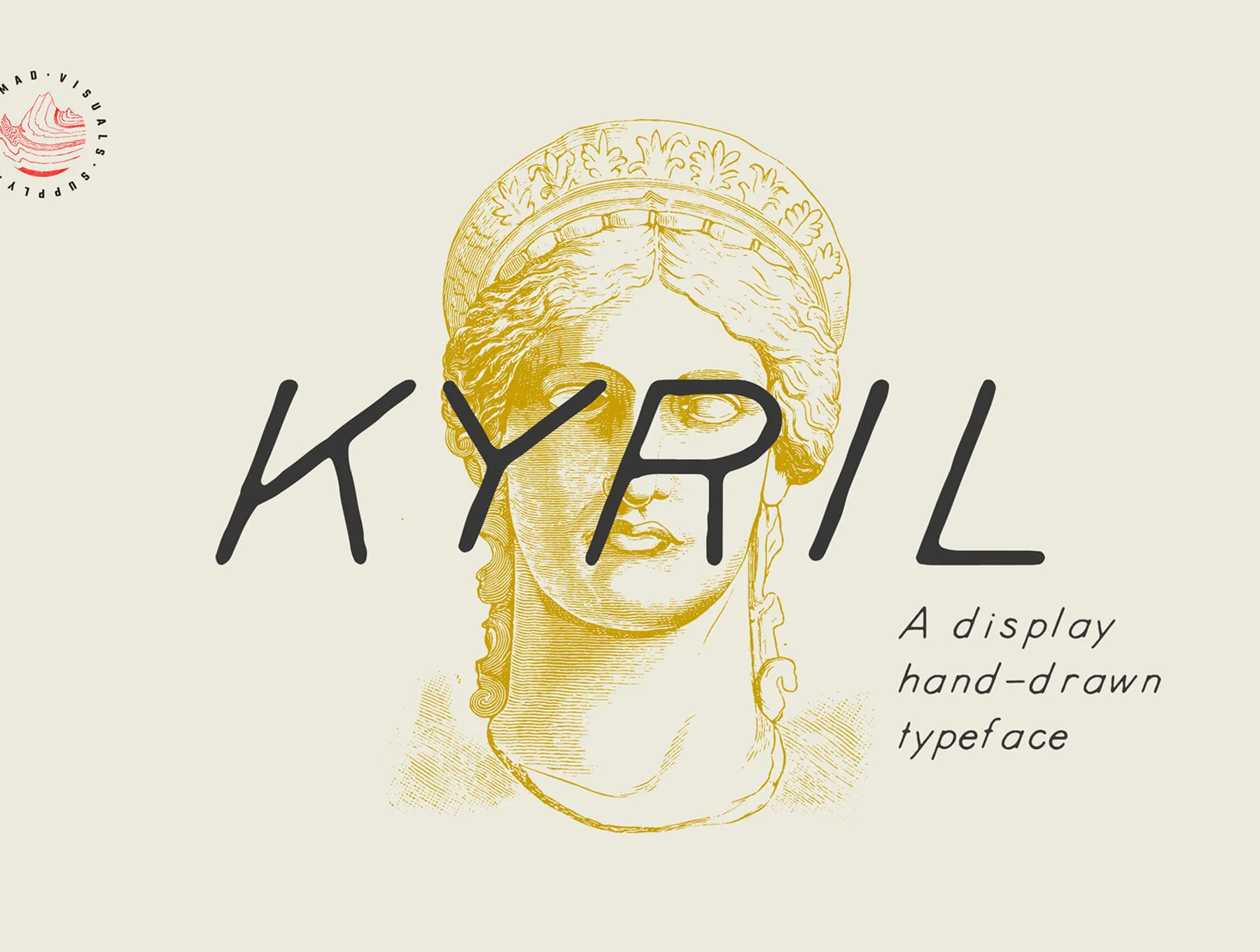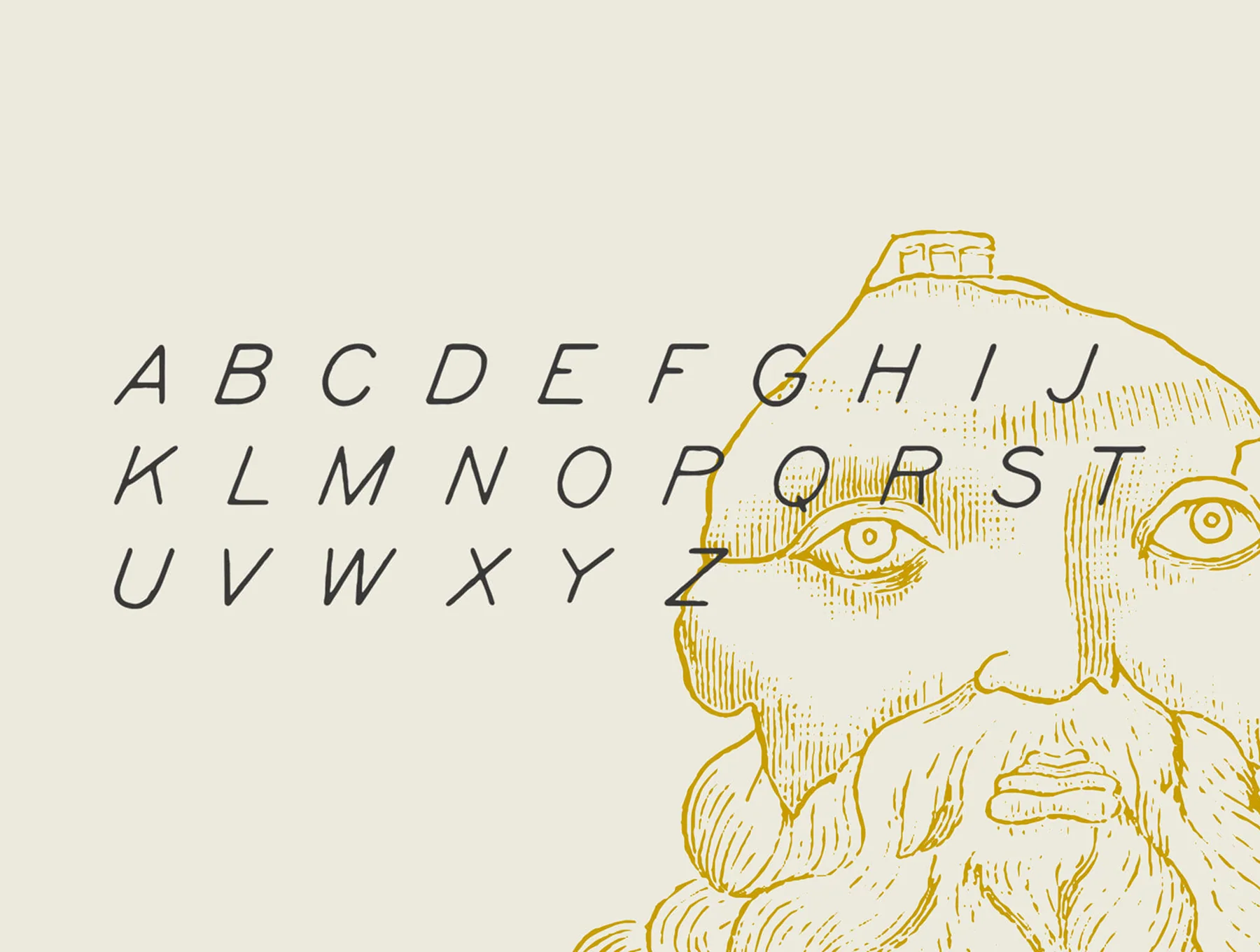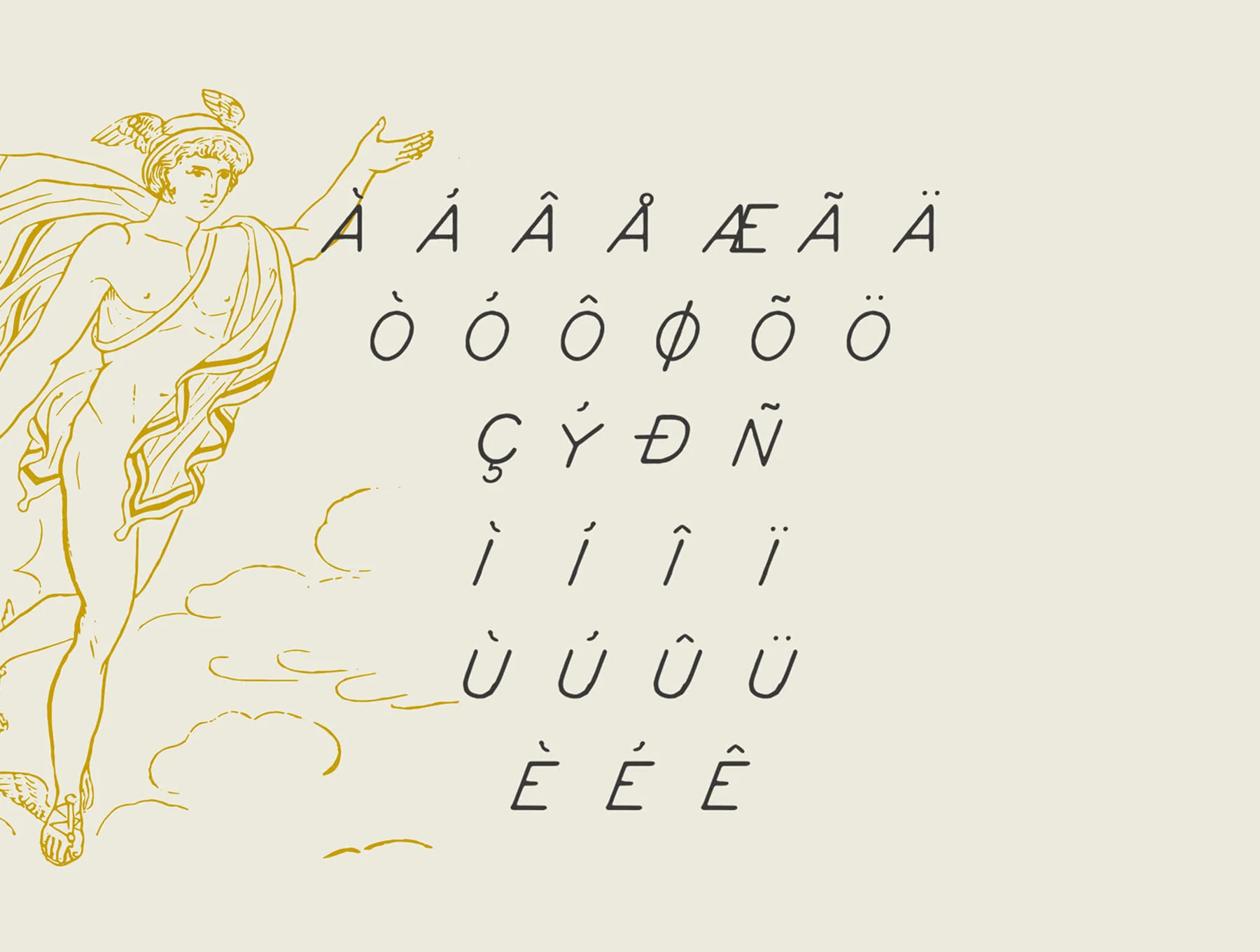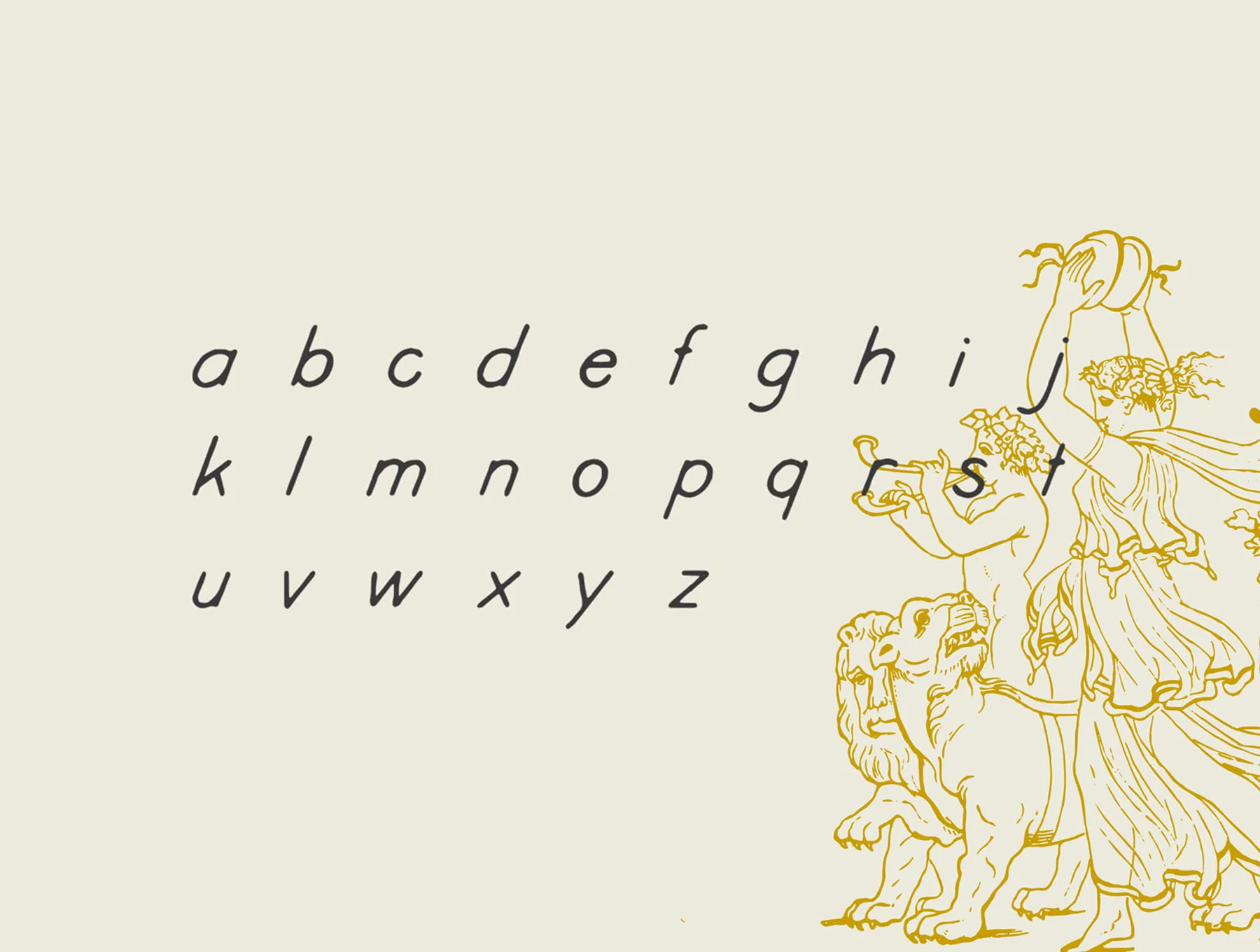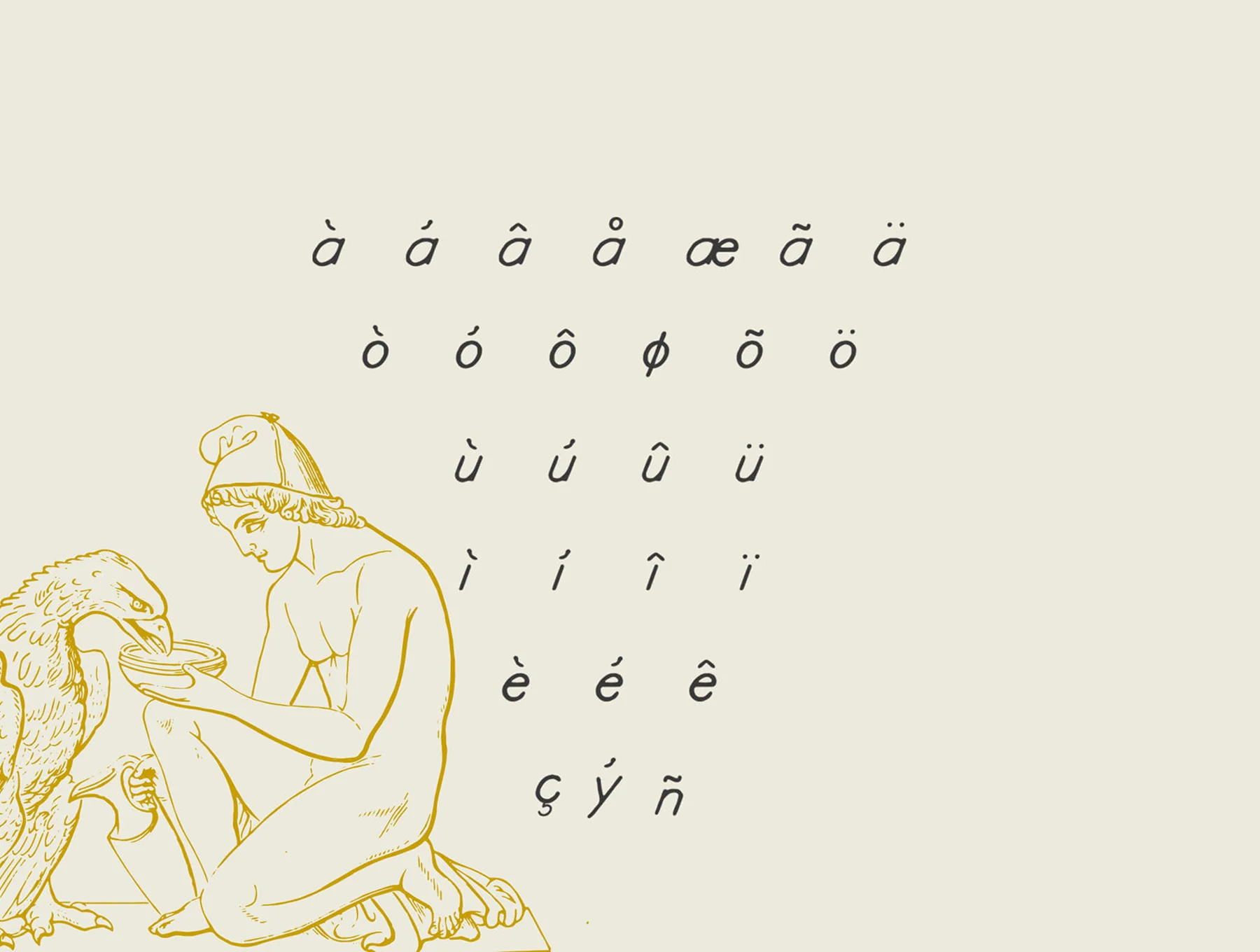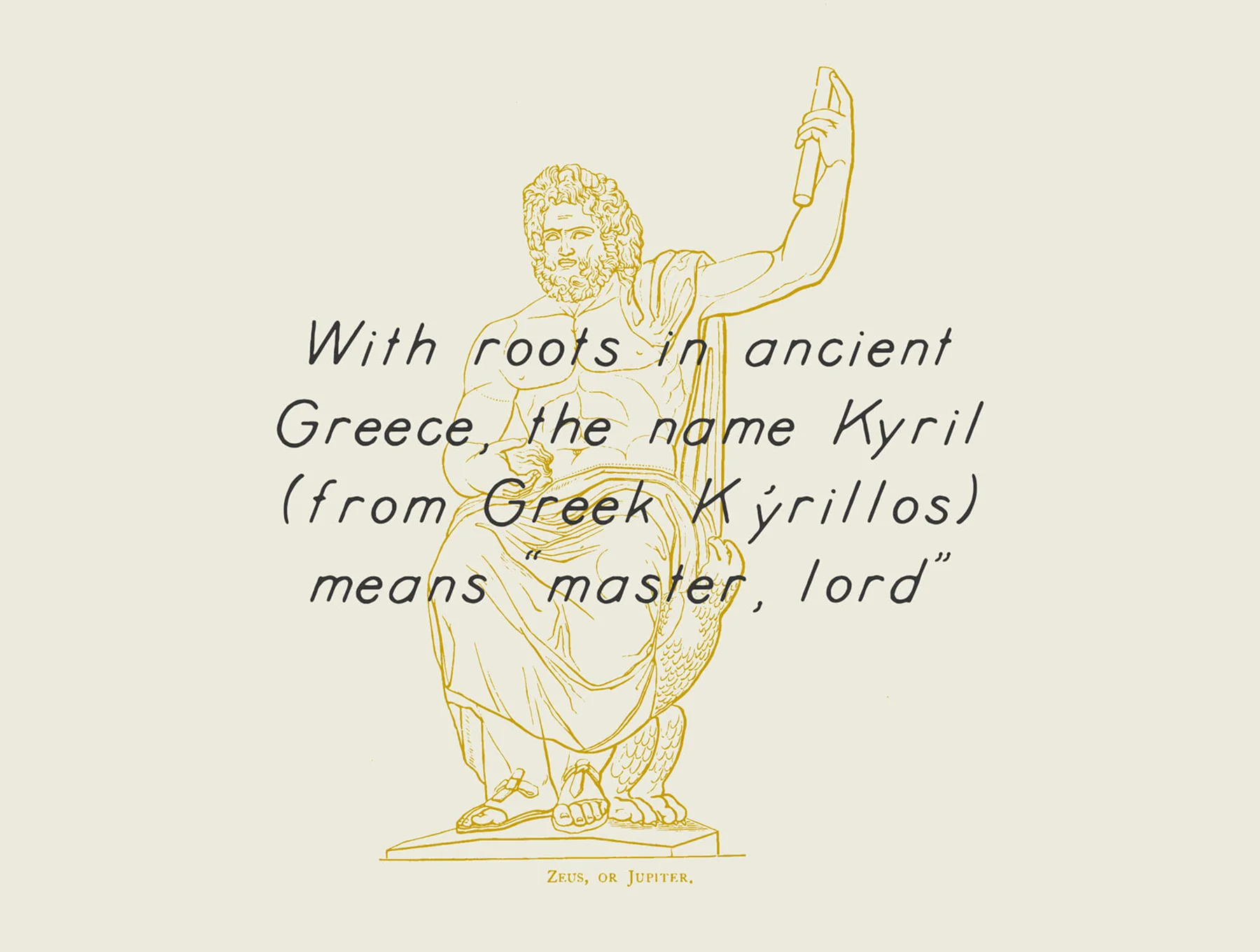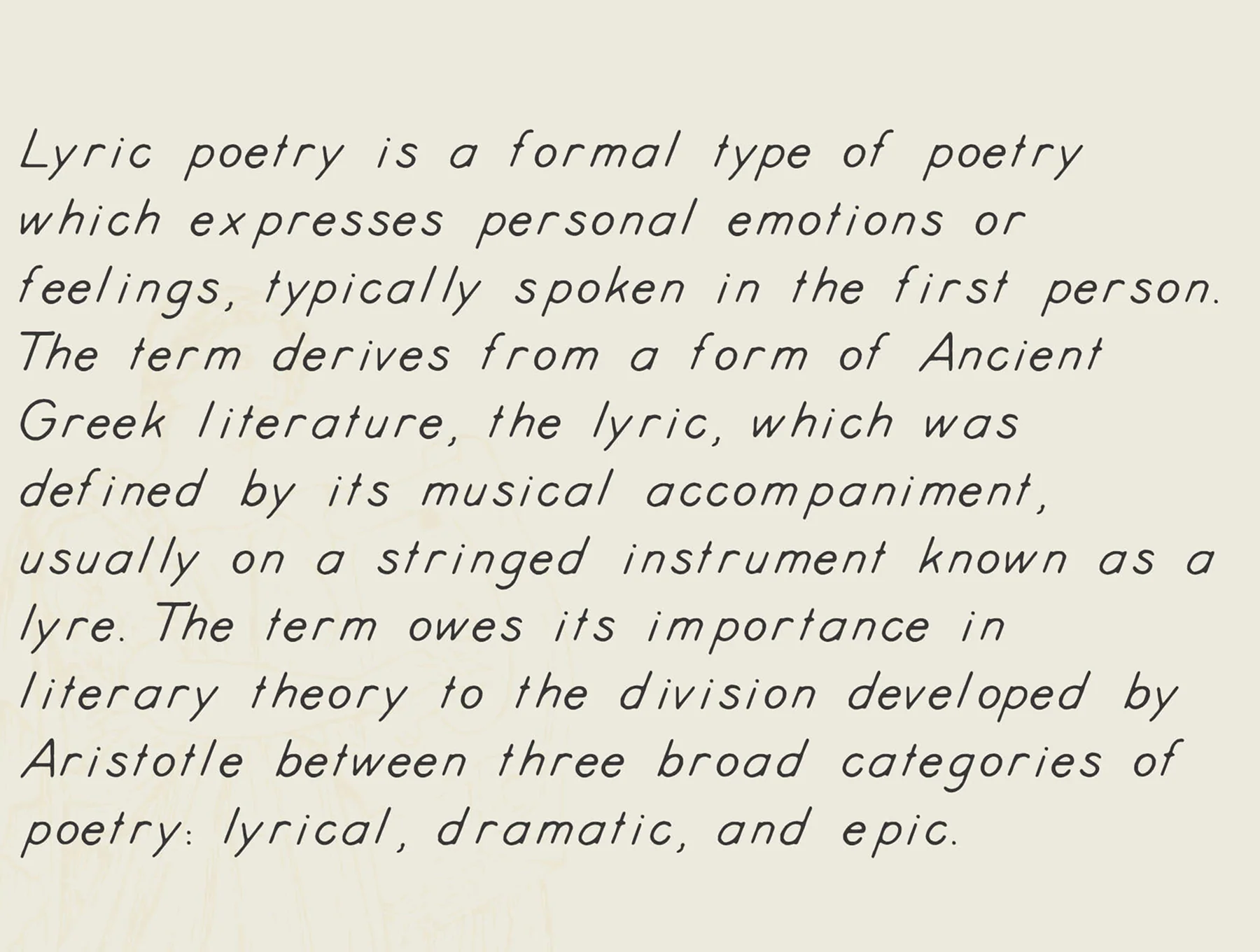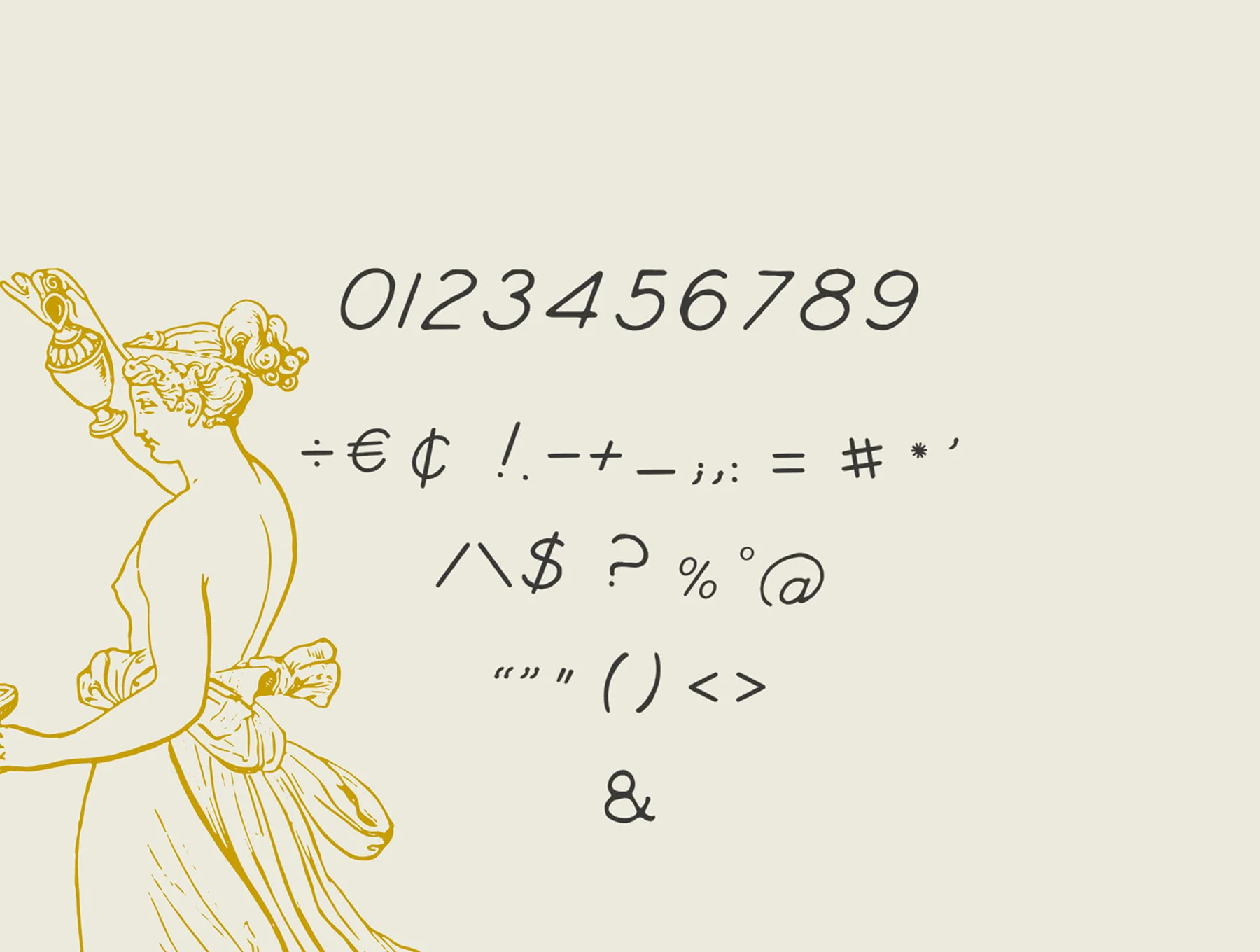
Kyril – Hand-Drawn Display Font
A striking hand-sketched display typeface shaped by Greek myths and lyrical verse.
Sketch-style display typeface with a legendary feel
Numerals
Capital and small letterforms
Punctuation marks
Kyril is a handmade display font infused with mythic charm and artistic character. Its irregular strokes and carved-style details create a classic, lyrical mood, ideal for logos, posters, and editorial layouts. It offers upper and lowercase letters, numerals, punctuation, and multilingual glyphs.